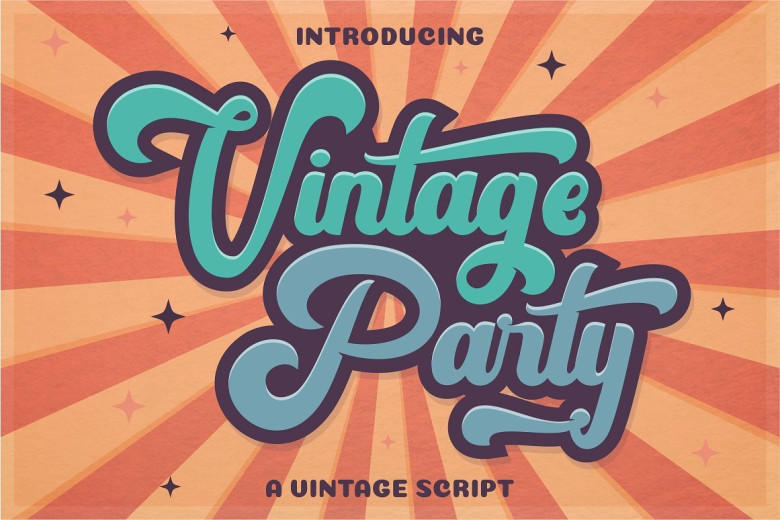
Vintage Party Bold Script Font
Dear Font Lovers! This is a very special script type, it is bold and brush style. The idea is to help designers to combine and incorporate together of the fonts in your design creative work. Introducing Vintage Party Font. “Vintage Party” – Inspired from retro typography from 80’s combine with bold typography style. Come with open type feature with a lot of alternates and end swash, its help you to make great lettering. Vintage Party best uses for Logotype, heading,cover, poster, logos, quotes, product packaging, header, merchandise, social media & greeting cards and many more. This font is also support multi language.